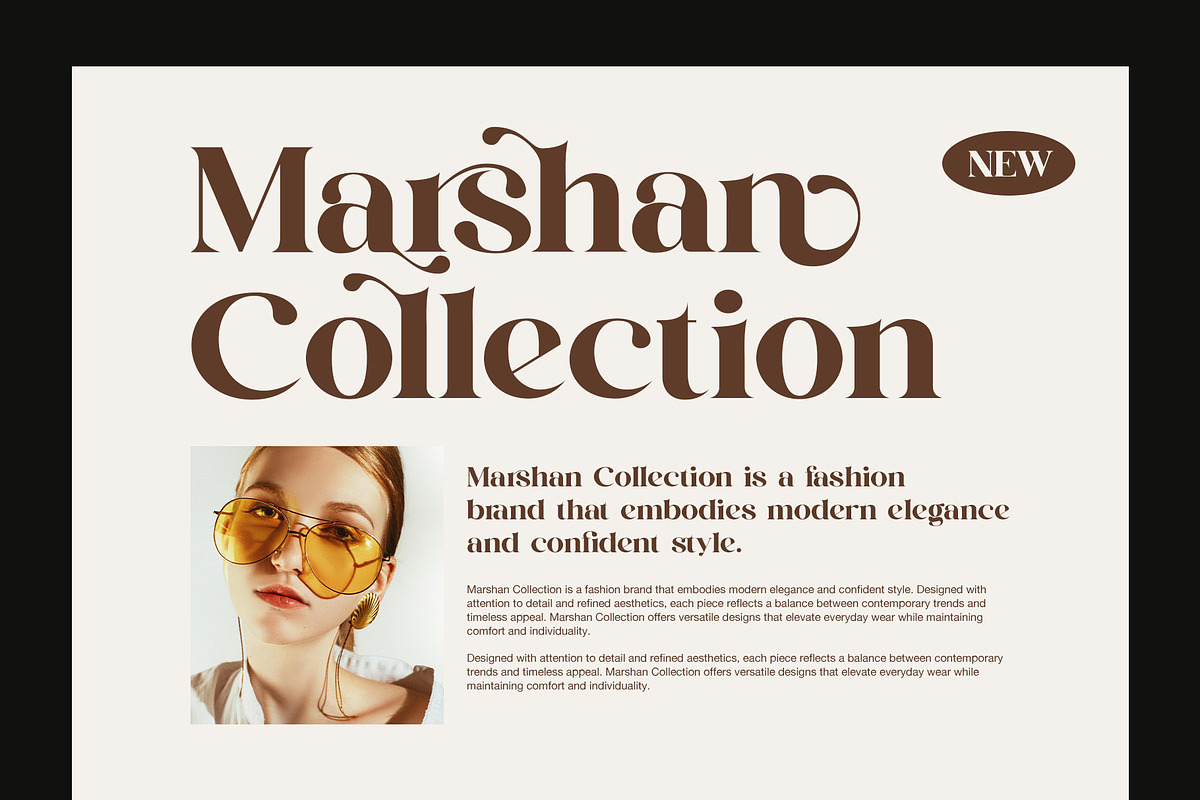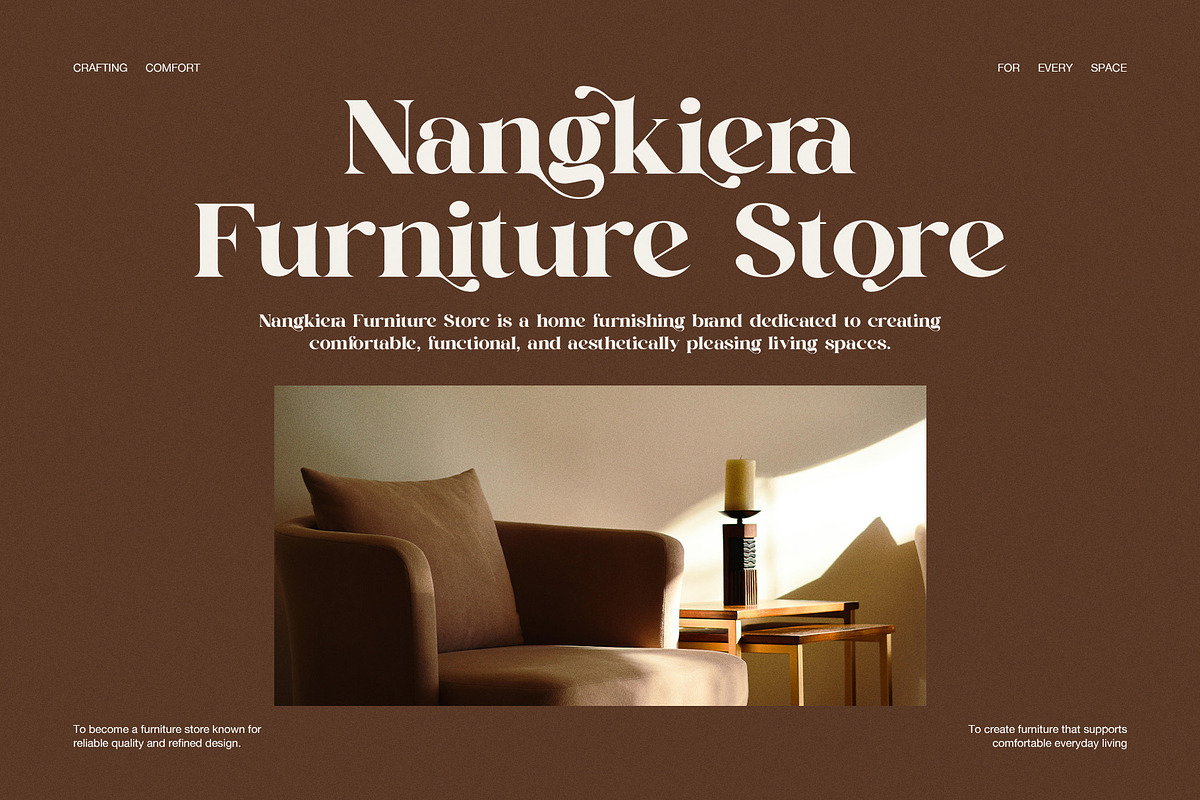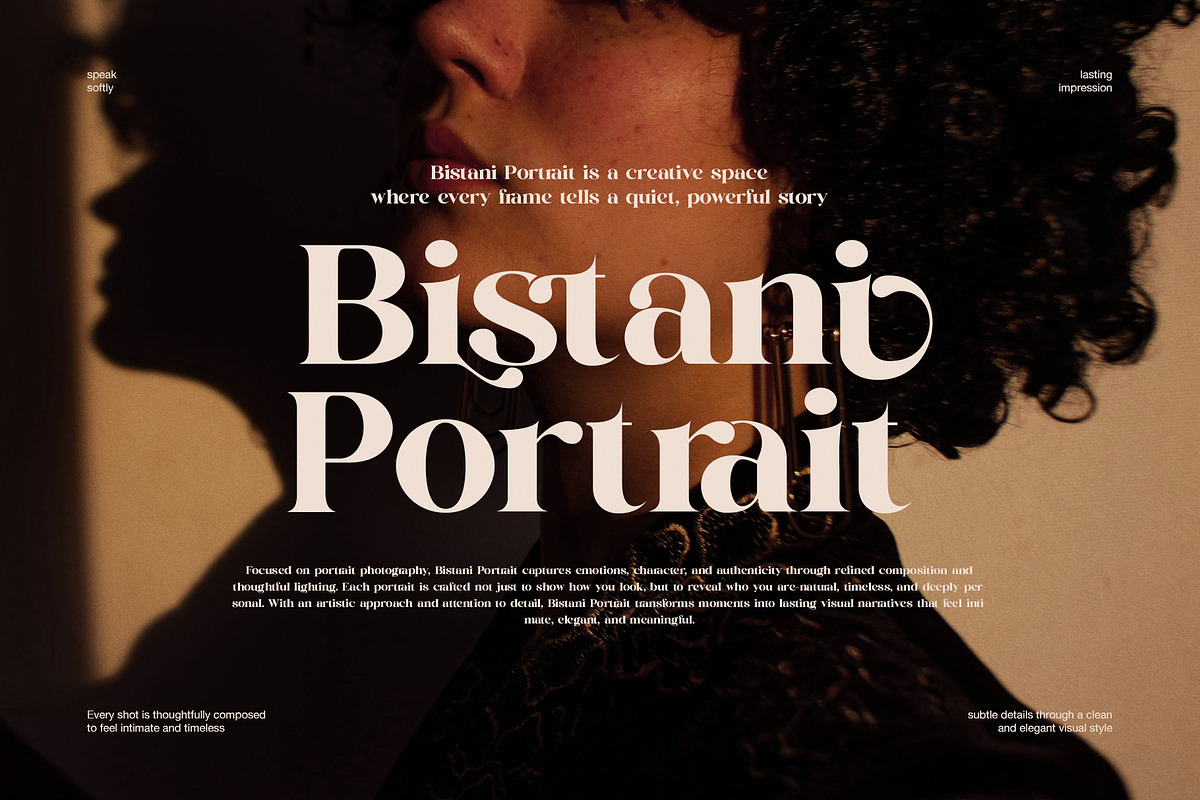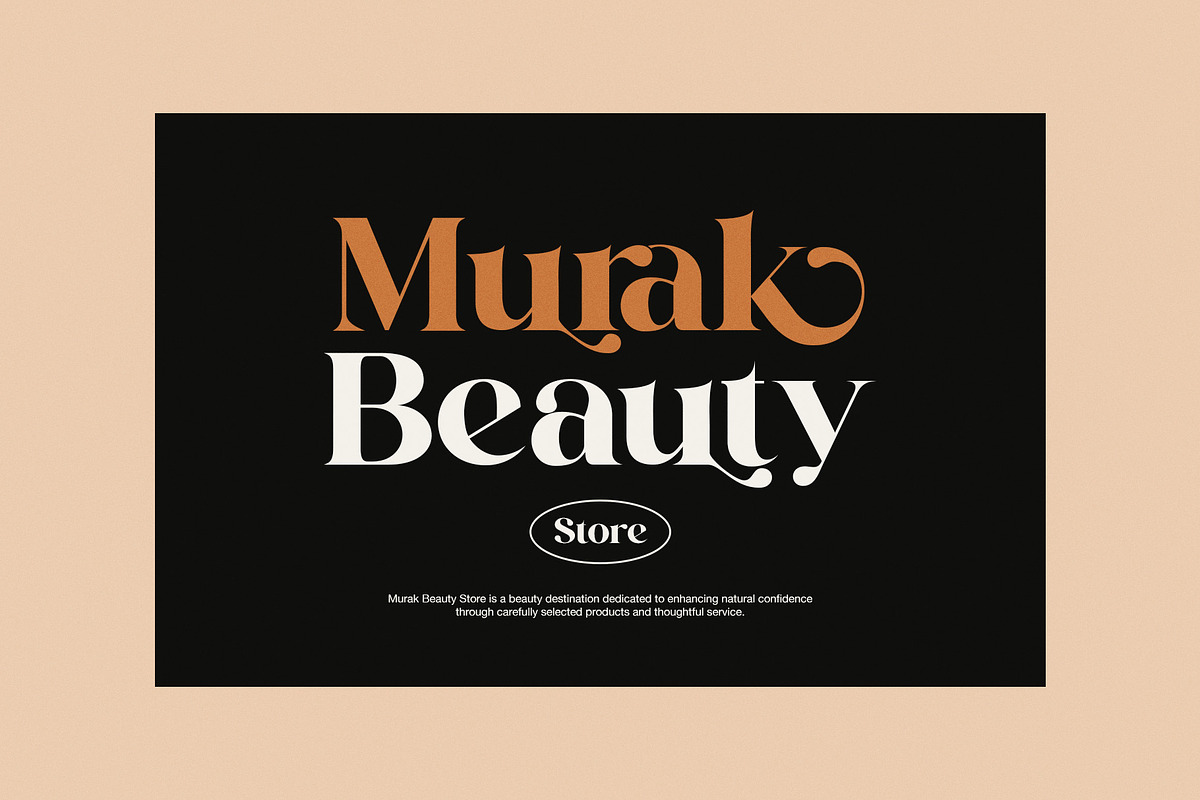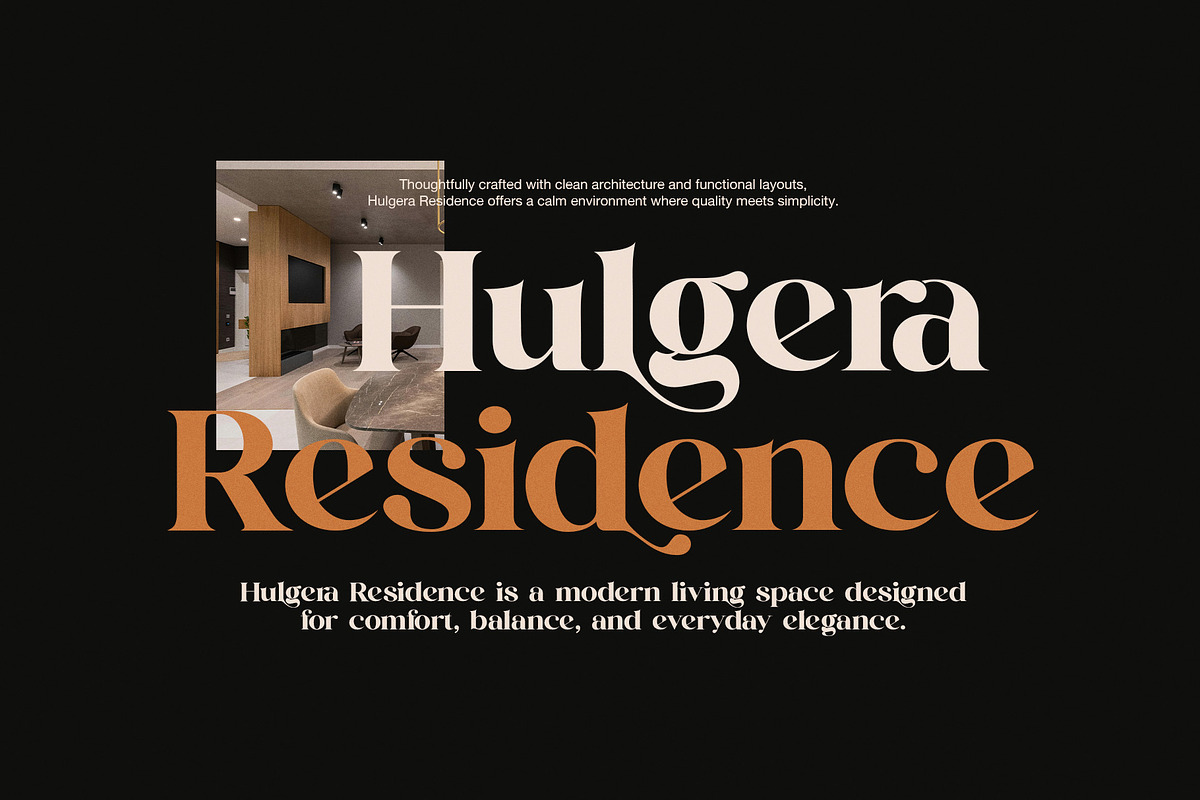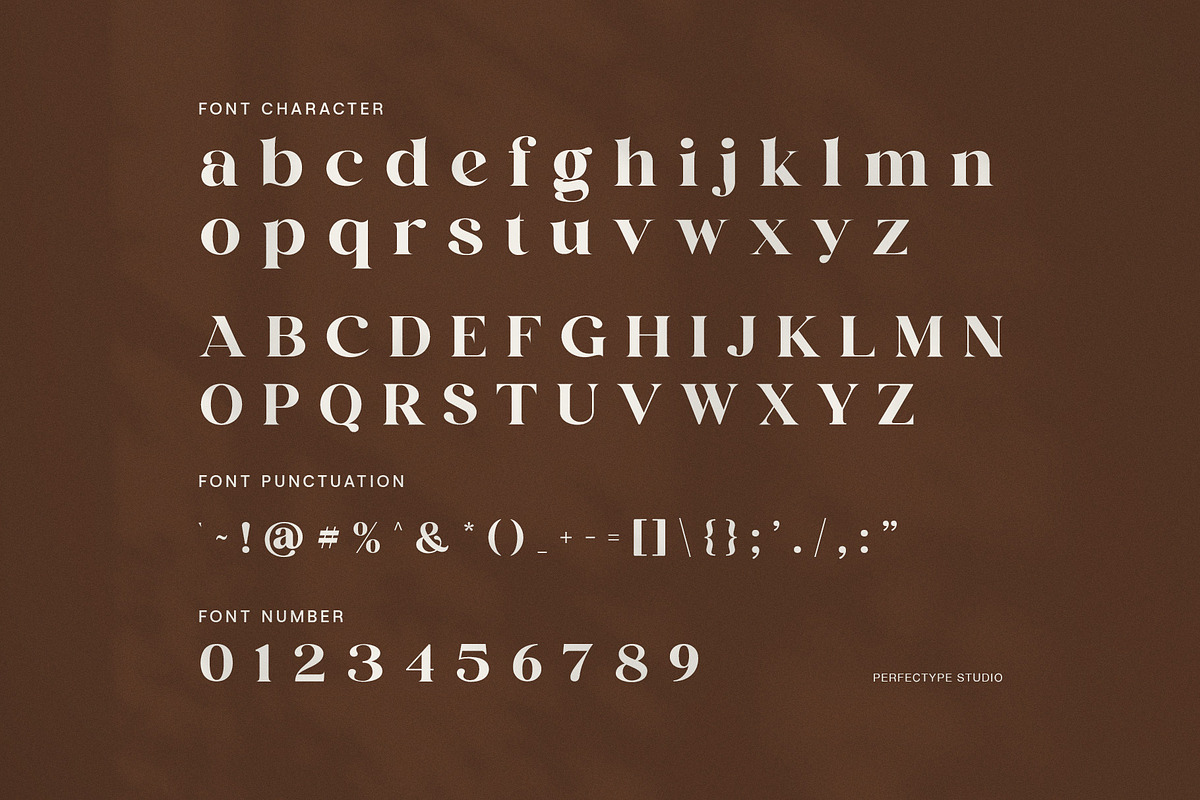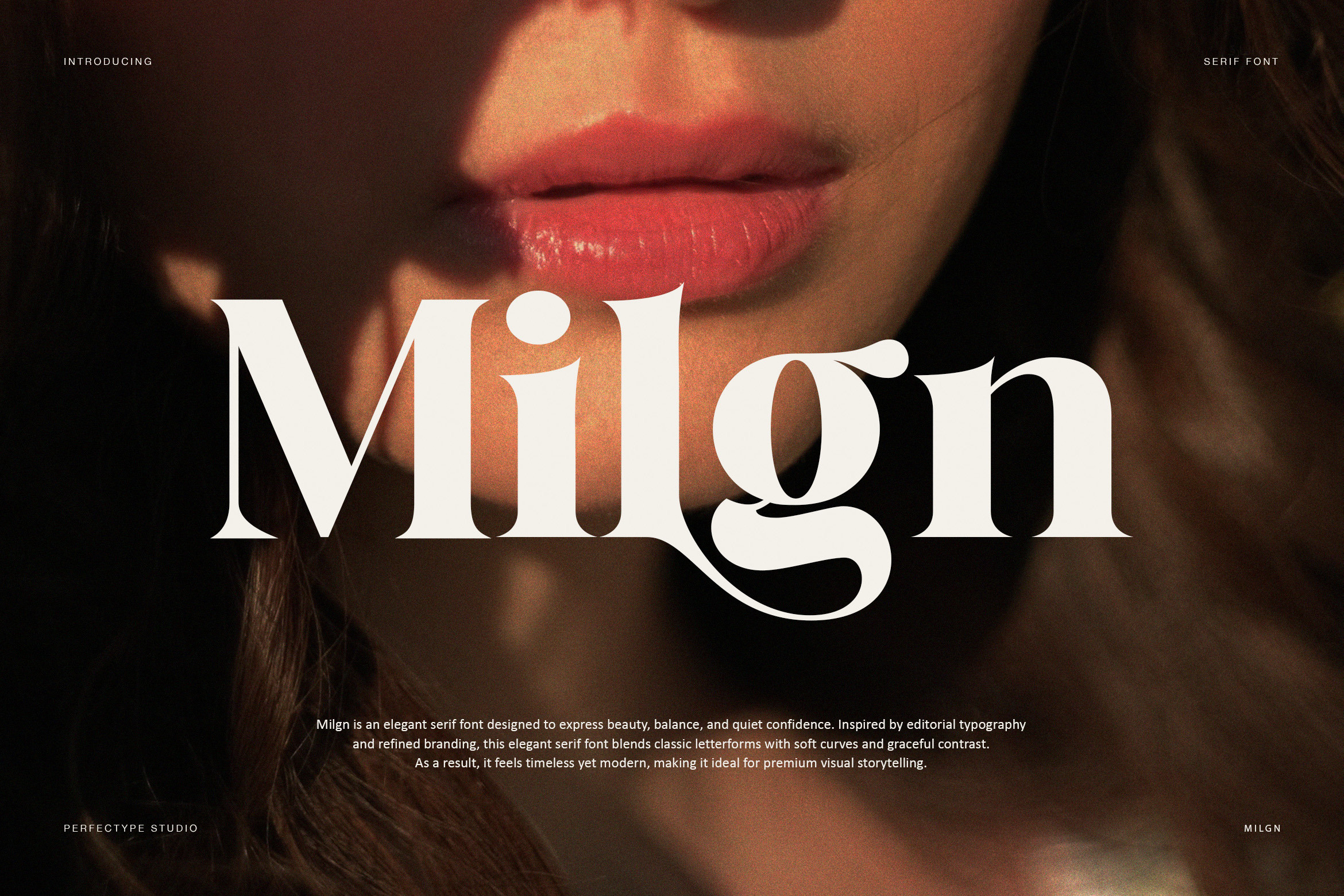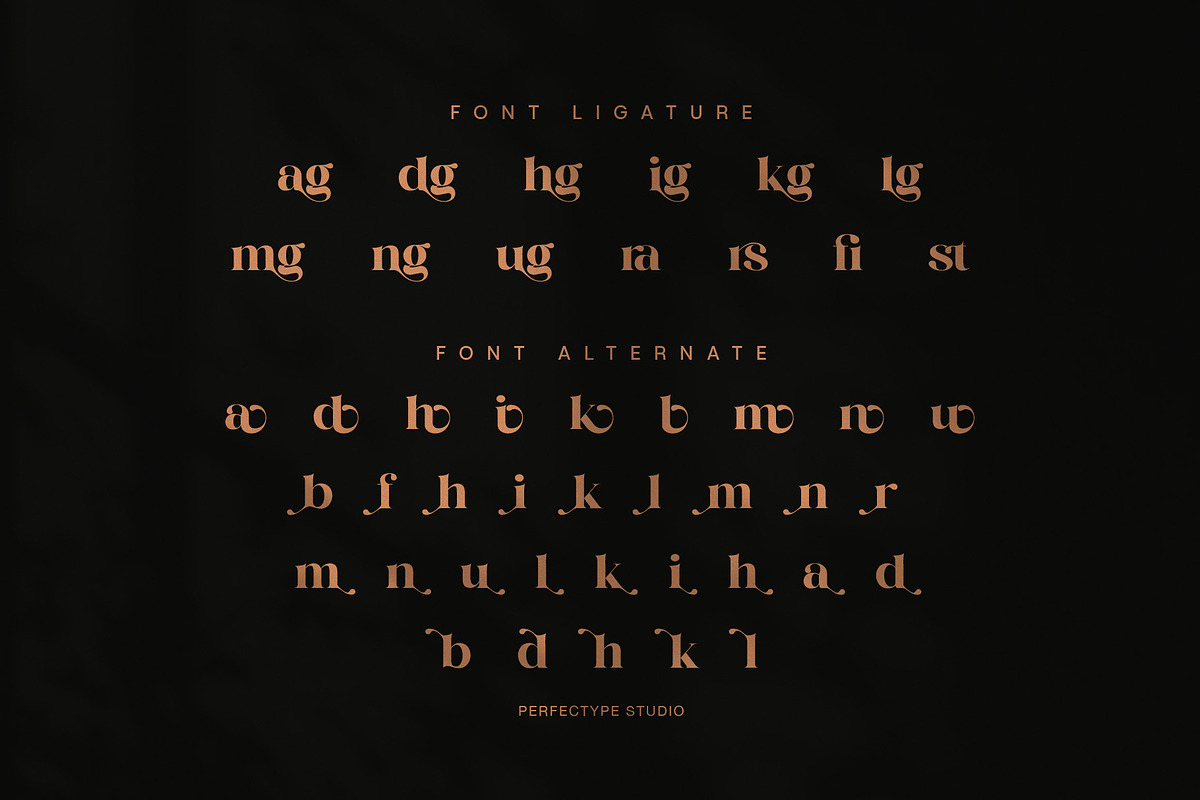
Milgn Elegant Serif Font
Elegant Serif Font for Beauty, Editorial, and Luxury Branding
Milgn is an elegant serif font designed to express beauty, balance, and quiet confidence. Inspired by editorial typography and refined branding, Milgn blends classic serif foundations with soft curves and graceful contrast. As a result, it delivers a timeless look that feels modern, sensual, and premium.
Moreover, Milgn features smooth letterforms that create a natural visual flow. Because of this thoughtful structure, headlines feel expressive without becoming heavy. At the same time, the font maintains excellent readability, even in longer text. Therefore, designers can use Milgn comfortably across both print and digital projects.
In addition, Milgn includes refined ligatures and stylish alternates that add personality to typography. These details allow designers to craft distinctive logos, brand names, and headlines with ease. Furthermore, the balanced uppercase characters feel confident and elegant, while the lowercase forms remain soft and inviting.
Milgn fits a wide range of creative industries. For example, it works beautifully for beauty brands, skincare packaging, fashion collections, portrait studios, and luxury lifestyle projects. It also performs well for furniture branding, interior design presentations, editorial layouts, magazines, and premium social media visuals. Because the contrast stays controlled, layouts feel sophisticated and emotionally engaging.
Why designers choose Milgn
Milgn helps brands communicate elegance with clarity and emotion. It supports visual storytelling while maintaining a clean, professional presence.
Key features and benefits:
Elegant serif style with smooth curves
Refined contrast for premium layouts
Expressive ligatures for natural flow
Stylish alternates for custom typography
Strong uppercase for logos and headlines
Clean lowercase for easy reading
Overall, Milgn is an elegant serif font that blends classic beauty with modern refinement. It allows designers to create visuals that feel confident, timeless, and emotionally rich.